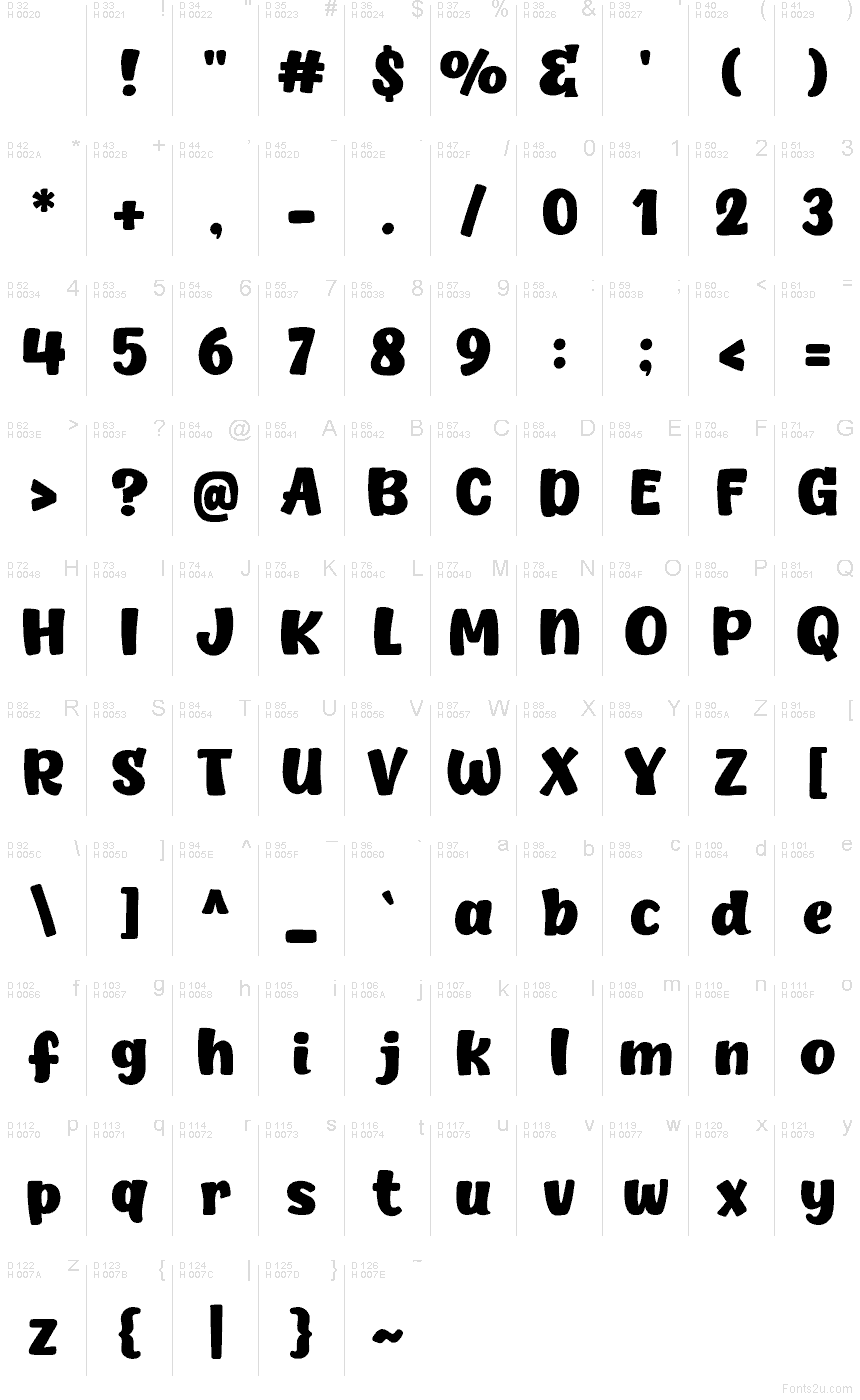
Kindergo
Kindergo font by Khurasan is a free cartoon display typeface with chunky, rounded shapes that feel like they’ve been cut from soft foam. The letters sway slightly from side to side, giving headlines a bouncy, hand-crafted energy that’s friendly and easy to read, even at smaller sizes. Its bold weight and smooth curves make color pop, especially in bright, kid-focused palettes.
Using Kindergo, you can bring warmth and playfulness to children’s book covers, classroom posters, game interfaces, birthday invitations, toy packaging, and daycare branding. This free font shines when used large and loud, letting its bubbly silhouettes carry the mood. Pair Kindergo with a clean, simple sans serif for body text to keep layouts readable while the cartoon letters do the storytelling.